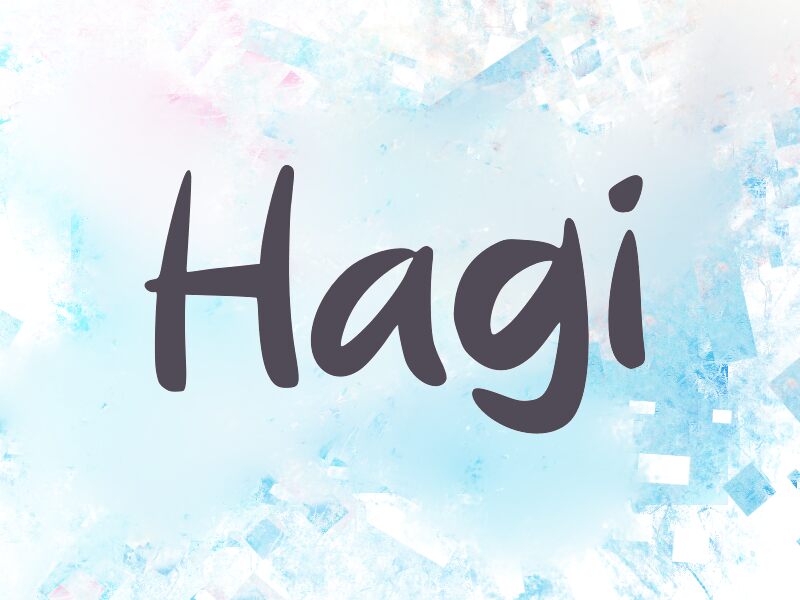
Hagi
Hagi font is a brush display font by wep. Its casual appearance makes it approachable and inviting, depicting fun and enjoyment. This modern typeface has thick strokes and rough edges; it slightly leans on the right alluding to speed.
Use this free handwritten font in logos, posters, apparel, packaging design, banners, stickers, children’s book covers. Other uses include invitations, greeting cards designs, scrapbooking covers and similar projects with a casual style and young spirit.